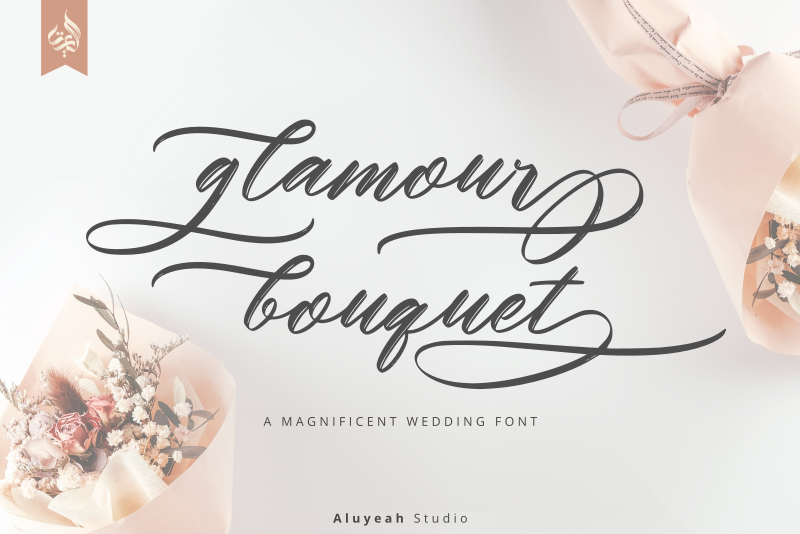
Glamour Bouquet
To get results like the preview just type g.7l.8amour.3 b.6ouquet.2
Coming with 140+ stunning and super easy to use alternates and ligatures. Very suitable for your wedding invitation, packaging, apps, magazine, headline, website, ads and all type of design project you have.